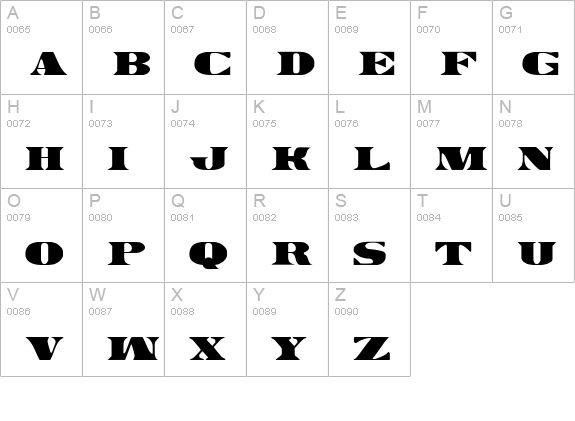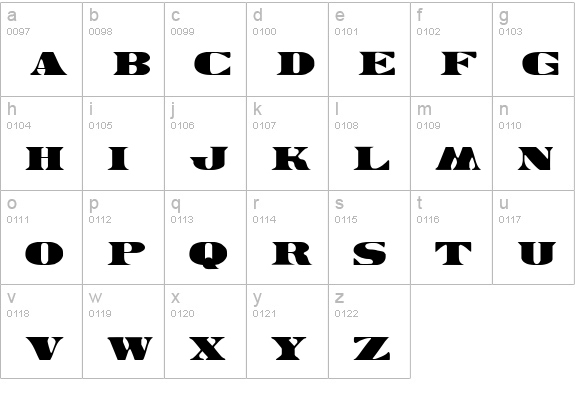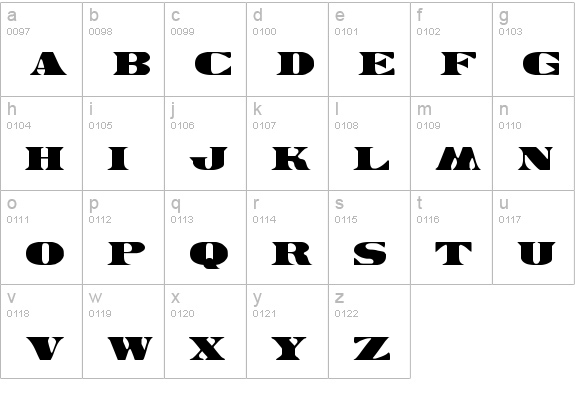
Legal Tender Font Details
Introducing Legal Tender, a remarkable font that effortlessly combines elegance, sophistication, and professionalism. Designed for those seeking a touch of class in their typography, this font is the perfect choice for legal documents, financial reports, and any project where a sense of prestige is desired. Legal Tender boasts clean, crisp lines that exude a sense of authority and reliability. Its bold and confident letterforms make a bold statement, capturing attention and commanding respect. With its impeccable spacing and balanced proportions, this font ensures readability and legibility, even in small sizes or dense paragraphs. What sets Legal Tender apart is its versatility. Whether you are creating legal contracts, corporate presentations, or upscale branding materials, this font effortlessly adapts to various design contexts, lending an air of professionalism and trustworthiness to every project. But the best part? Legal Tender is freely available to download at FontsMarket.com. Yes, you read that right – this exceptional font can be yours without any cost. We believe that every designer, entrepreneur, and creative professional should have access to high-quality resources, which is why we have made Legal Tender accessible to all. So go ahead, elevate your designs to new heights with Legal Tender. Download it today from FontsMarket.com and experience the power of this stunning font – free of charge.